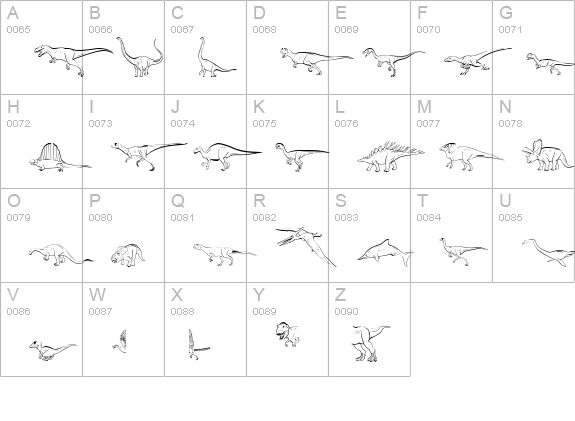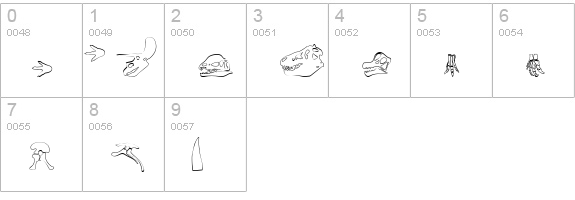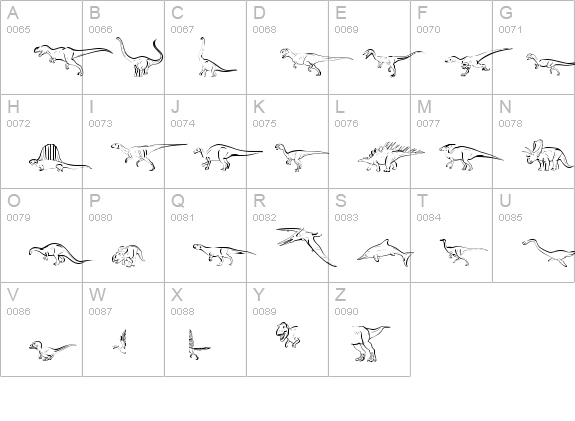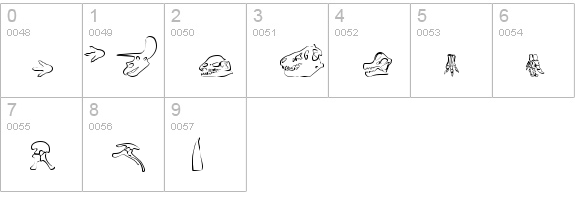
The Dinosaur Outline font is a striking display typeface that will transport your designs back to the prehistoric era. With its sharp lines and bold presence, this font evokes the powerful and majestic nature of dinosaurs. Perfect for adding a touch of adventure and excitement to your projects, the Dinosaur Outline font is sure to make a statement. Best of all, this font is available for free download at FontsMarket.com. Embrace your inner explorer and unleash the ancient power of the dinosaurs with this unique and captivating font. Let your creativity run wild and bring your designs to life with the Dinosaur Outline font.